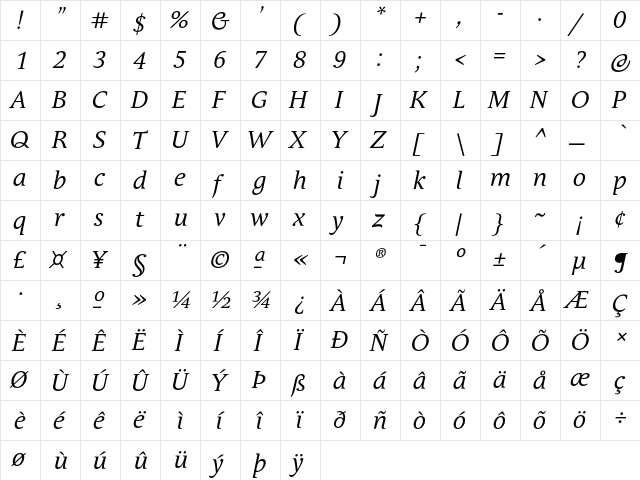
Andulka Book Pro Italic
| Designer | Frantisek Storm |
Design Context for Andulka Book Pro Typeface
Andulka Book Pro is a composed and adaptable typeface that performs quietly and consistently across a wide range of design contexts. Its italic angle brings a sense of urgency and motion to the letterforms.
Pro Tip: Try Andulka Book Pro for annotation and caption copy alongside an upright companion — the contrast in angle creates a dynamic but ordered typographic system.